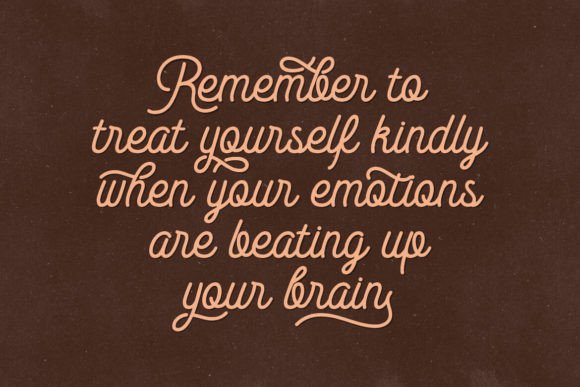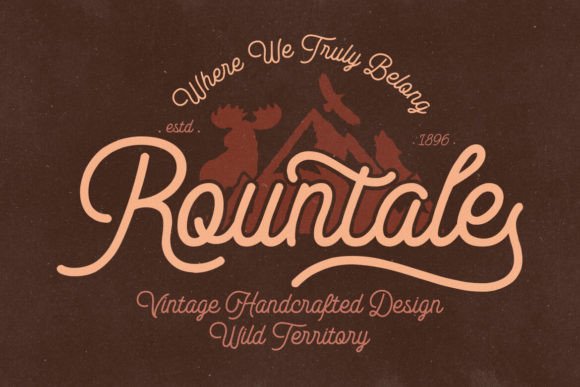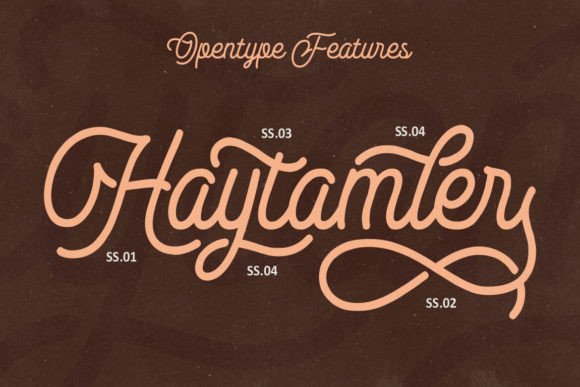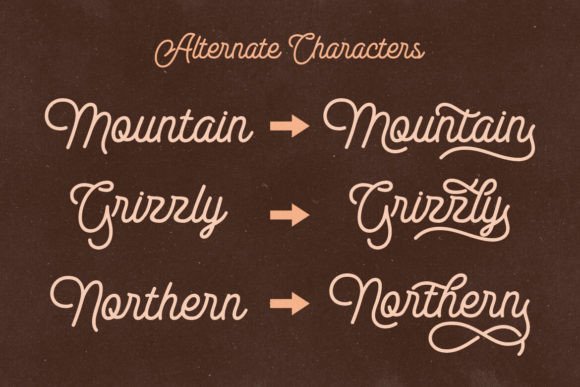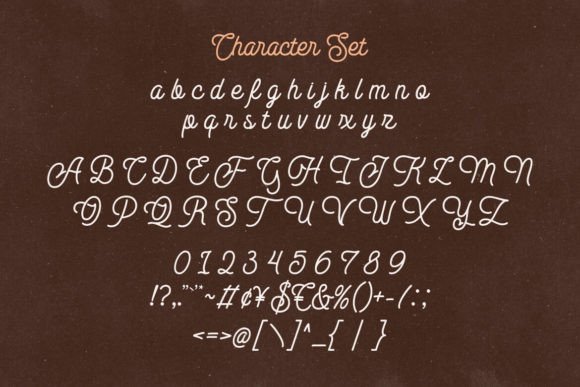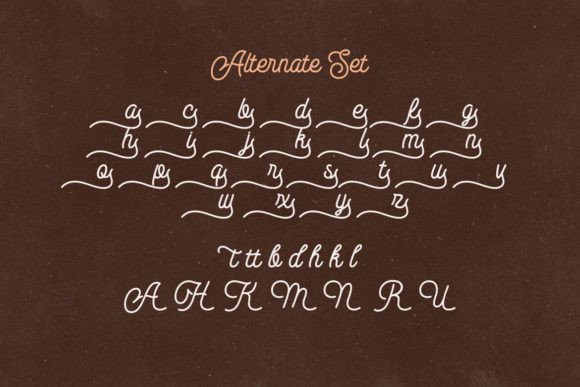
Introduction to Denhils Font
Have you ever found yourself in the middle of a creative project, stuck on the perfect font to give it that special something? The blank screen stares back at you, waiting for inspiration to strike. That’s where Denhils Font comes in – a beautiful, high-quality monoline type font that adds a touch of vintage charm to any design.
As a designer, you know the value of having the right design resource at your fingertips. Denhils Font is more than just a font – it’s a versatile tool that can be used for a wide range of creative projects, from logotypes and stickers to packaging design and YouTube thumbnails. With its smooth, monoline characters, this font is perfect for adding a professional, high-end touch to your work.
Key Features of Denhils Font
- High-quality typography for creative projects, suitable for a wide range of design applications.
- Unique, handcrafted design that adds a touch of elegance and sophistication to any creative project.
- Perfect for designers, artists, and creatives looking for a high-quality, versatile font to enhance their work.
Honest Review: Denhils Font
As a designer, I’m always on the lookout for high-quality design resources to enhance my creative projects. Recently, I stumbled upon the Denhils Font, and I’m excited to share my thoughts on it.
- ✨ Unique and modern design style that’s perfect for contemporary creative projects
- ✨ Clear and legible font that’s easy to read, even at smaller sizes
- ⚠️ Limited font styles and weights available (only 4 styles currently)
- ⚠️ Some users may find the font a bit too minimalist for certain design applications
Overall, I think the Denhils Font is a solid choice for designers who want a modern and clean font for their creative projects. While it has some limitations, it’s still a great resource to have in your design arsenal. Plus, the free download option makes it hard to resist!
Tips for Getting the Most Out of Denhils Font
Use the Denhils Font with a transparent background to create a unique and eye-catching design. Experiment with different font sizes and styles to add depth and visual interest to your design.
The Denhils Font is ideal for use in creative projects that require a high-quality, stylish font. It’s perfect for use in logos, branding materials, and marketing collateral.
What is the recommended usage for the Denhils Font?
The Denhils Font is designed for a wide range of creative projects, including digital and print media. It’s suitable for headings, titles, and body text, and its high-quality design makes it perfect for branding, packaging, and advertising materials. Always follow the terms of use and licensing agreements when using the font in your commercial or personal projects.